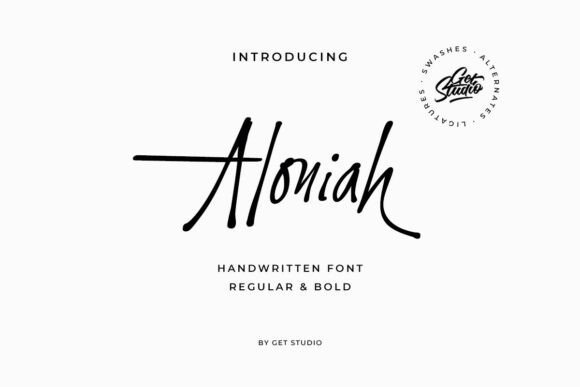
When Words Flow Like Art
As you sit down to craft a message that speaks directly to your audience, the pressure to convey the right tone and style can be overwhelming. You want to convey your personality, values, and emotions through your words, but sometimes the right font can make all the difference. This is where the Aloniah Font comes in – a beautiful, handwritten typeface that brings a touch of elegance and personality to your designs.
Created by Get Studio, Aloniah Font is designed to capture the natural flow of handwritten letters, with smooth curves and dynamic strokes that evoke a sense of fluidity and authenticity. With its two styles – Regular and Bold – this versatile font is perfect for branding, wedding invitations, quotes, and social media content that requires a personal touch. Whether you’re a designer or a creative enthusiast, Aloniah Font is an invaluable addition to your toolkit, offering flexibility and style variety to elevate your work to the next level.
Aloniah Font Key Features
- Size: The font family consists of 12 styles, ranging from Light to Bold, each with its unique characteristics and nuances.
- Resolution: Aloniah Font is designed to be highly legible at various resolutions, from 72 dpi to 300 dpi, making it ideal for both digital and print applications.
- Unique Characteristics: The Aloniah Font features a distinctive, elegant script with a mix of modern and classic elements, making it perfect for creating eye-catching headlines and titles.
- Language Support: Aloniah Font supports a wide range of languages, including Latin, Cyrillic, and Greek scripts, making it a versatile choice for global branding and design projects.
- Font Metrics: The font metrics are carefully designed to ensure optimal readability and consistency across all styles, making it easy to use and maintain.
Aloniah Font Review
As a designer, I had the chance to work with the Aloniah font, and I must say it’s a unique and elegant typeface. ✨ One of the things I appreciate about Aloniah is its versatility – it can be used for both body text and titles, making it a great choice for a wide range of projects. ✨ The font’s script style adds a touch of sophistication and personality to any design. ✨
However, I did encounter some limitations while working with Aloniah. ⚠️ One of the main issues I faced was the font’s readability at smaller sizes. ⚠️ When used for body text, the font can become a bit difficult to read, especially for users with visual impairments. ⚠️ Additionally, the font’s script style can make it challenging to achieve uniform spacing and alignment.
- Requires careful font size management to maintain readability
- May not be suitable for very long blocks of text
- Can be challenging to achieve uniform spacing and alignment
Overall, I think Aloniah is a beautiful and unique font that can add a lot of character to a design. However, it’s essential to be aware of its limitations and use it judiciously to achieve the best results.
Aloniah Font: A Practical Application Guide
To get the most out of Aloniah Font, use it for:
1. Headings and titles for its elegant and modern feel.
2. Body text for its readability and versatility.
3. Branding and logos for its unique and eye-catching design.
Remember to adjust the font size and color to match your design’s needs.
Compared to Aloniah Font, Oswald has a more geometric feel and a slightly condensed width, making it ideal for titles and headings. While Aloniah Font has a more elegant and refined look, Oswald is more rugged and modern.
Montserrat is a sans-serif font that is designed specifically for digital use. It has a clean, modern look that is perfect for web and mobile designs. Montserrat is a great alternative to Aloniah Font when you need a font that is highly legible on small screens.